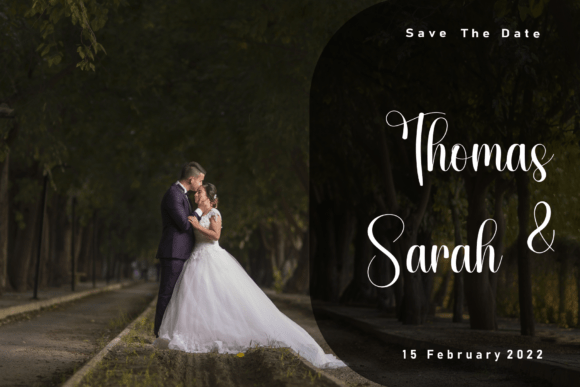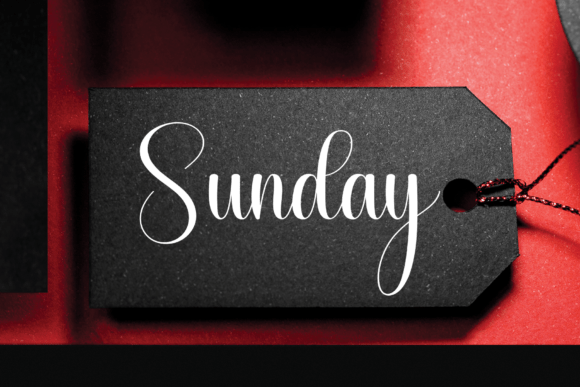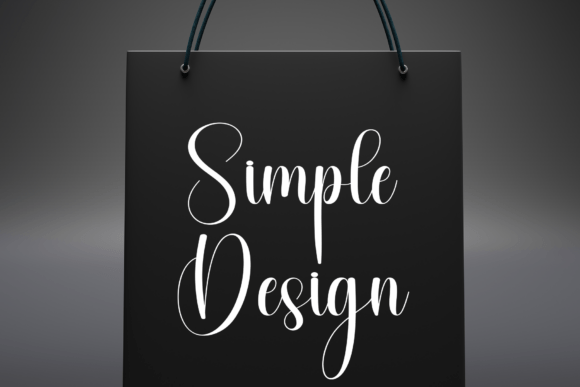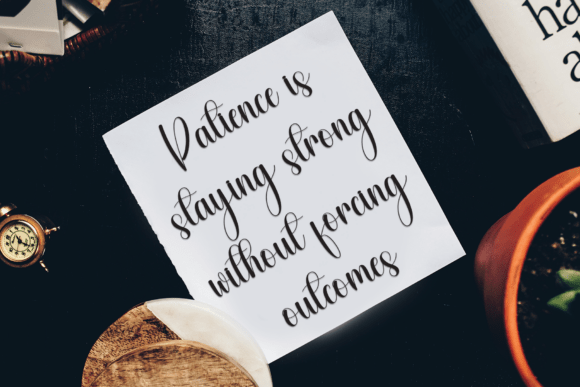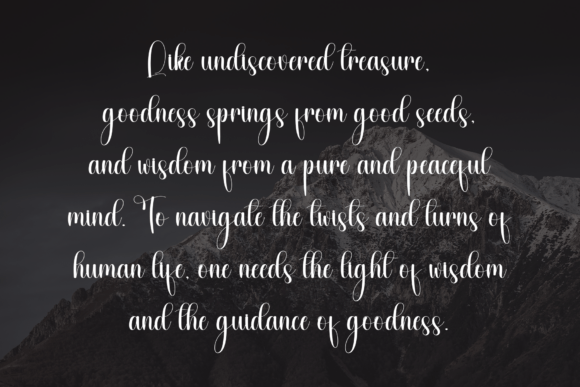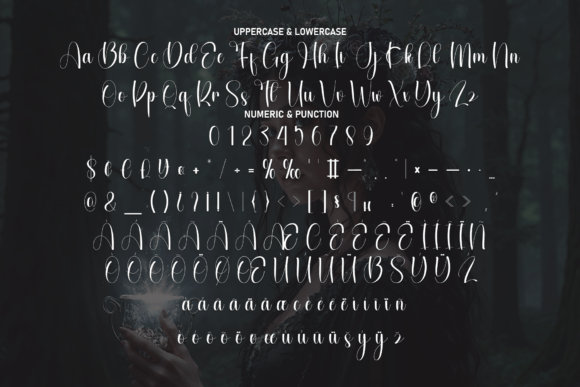
Discover the Enchanting Universe of Enchanteur Font
Welcome to the whimsical world of Enchanteur Font, where creativity knows no bounds and imagination runs wild. Our meticulously crafted typeface is designed to infuse your works with a lively, spirited style that’s sure to captivate your audience. Whether you’re a designer, crafter, or artist, Enchanteur Font is the perfect choice for adding a dash of playful intrigue to your projects.
A Font that Combines Sleek Grace with Imaginative Artistic Flair
Enchanteur Font is a unique and bespoke typeface that seamlessly marries sleek grace with imaginative artistic flair. Our font is designed to inject your creative pursuits with luminosity and vigor, making it perfect for a wide range of applications. From captivating wedding invitations to mesmerizing greeting cards, Enchanteur Font is the ideal choice for anyone looking to add a touch of whimsical charm to their artistic creations.
The Perfect Blend of Clean Sophistication and Bold Creativity
What sets Enchanteur Font apart is its perfect blend of clean sophistication and bold creativity. Our font is carefully crafted to provide a clean and elegant look that’s perfect for formal events, while also offering a bold and creative edge that’s sure to make your projects stand out. Whether you’re looking to create a stunning wedding invitation or a eye-catching greeting card, Enchanteur Font has got you covered.
Enchanteur Font offers endless possibilities for designers and crafters. With its unique and imaginative design, our font can be used for a wide range of projects, including:
- Artistic creations, such as illustrations and paintings
- Digital media, such as social media graphics and blog posts
Why Choose Enchanteur Font?
So why choose Enchanteur Font for your next project? Here are just a few reasons:
- Unique and imaginative design: Our font is carefully crafted to provide a unique and imaginative look that’s sure to make your projects stand out.
- Perfect blend of clean sophistication and bold creativity: Enchanteur Font offers a perfect blend of clean sophistication and bold creativity, making it perfect for a wide range of applications.
- High-quality design: Enchanteur Font is designed to provide a high-quality look that’s perfect for professional designers and crafters.
Get Ready to Immerse Yourself in the Enchanting Universe of Enchanteur Font
Are you ready to immerse yourself in the enchanting universe of Enchanteur Font? Our font is designed to provide a lively, spirited style that’s sure to captivate your audience. With its unique and imaginative design, Enchanteur Font is the perfect choice for anyone looking to add a dash of playful intrigue to their artistic creations. So why wait? Discover the perfect blend of clean sophistication and bold creativity encompassed within our bespoke font and take your designs to the next level.
In conclusion, Enchanteur Font is a unique and imaginative typeface that’s perfect for designers, crafters, and artists looking to add a dash of playful intrigue to their projects. With its perfect blend of clean sophistication and bold creativity, our font is sure to make your projects stand out. So why wait? Discover the enchanting universe of Enchanteur Font today and take your designs to the next level.